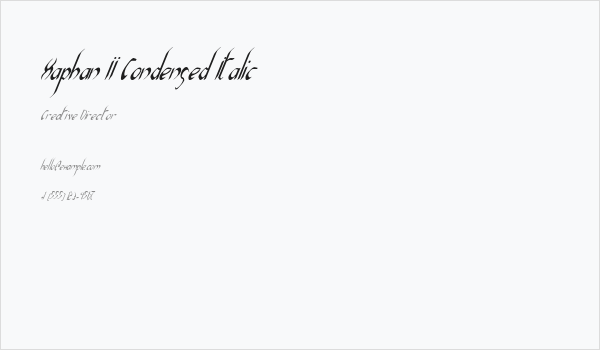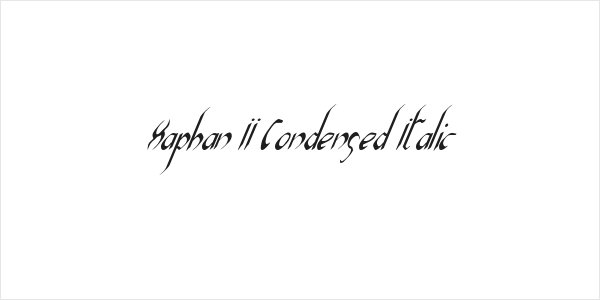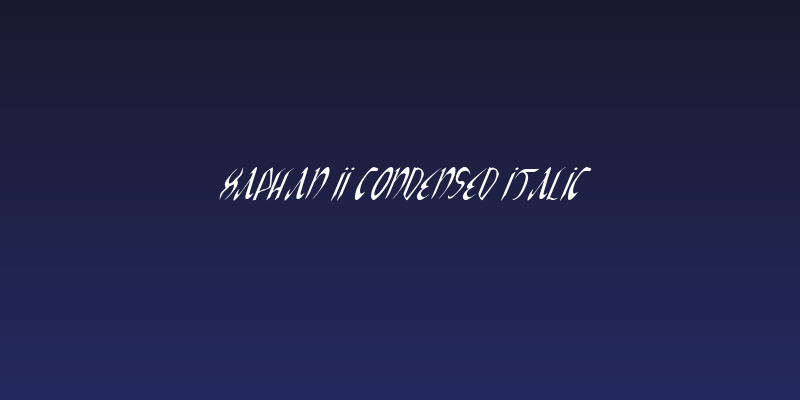
Xaphan II Condensed Italic Font
Xaphan II Condensed Italic Description
This font exhibits a striking and dynamic style, characterized by its sharp, angular strokes and fluid, italicized form. The letters are condensed, giving a sleek and elongated appearance that enhances its dramatic flair. The uppercase and lowercase letters maintain a consistent slant, adding to the cohesive and flowing nature of the typeface. The numerals and special characters follow the same stylistic cues, ensuring uniformity across all glyphs. The high contrast between thick and thin strokes adds to its bold and expressive nature, making it ideal for attention-grabbing designs.
| Proposed Projects | This font is perfect for projects that require a bold and artistic touch, such as posters, album covers, branding for edgy or modern products, and creative editorial layouts. |